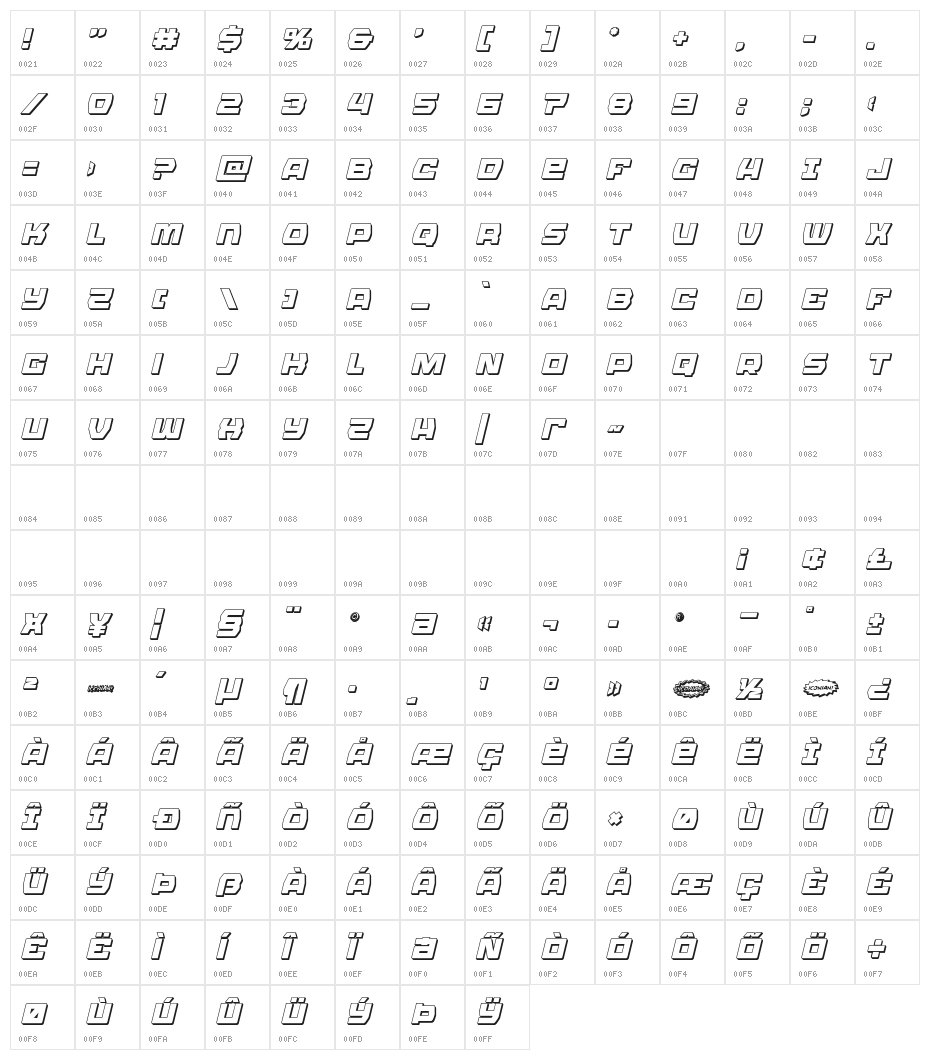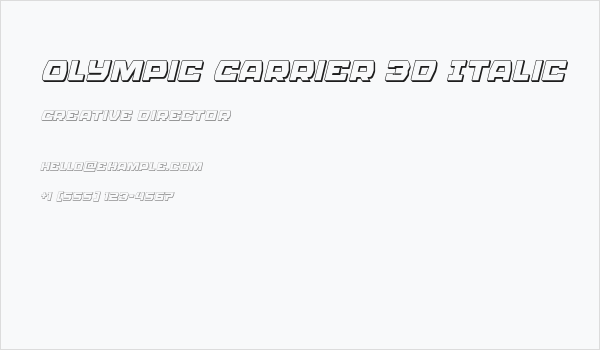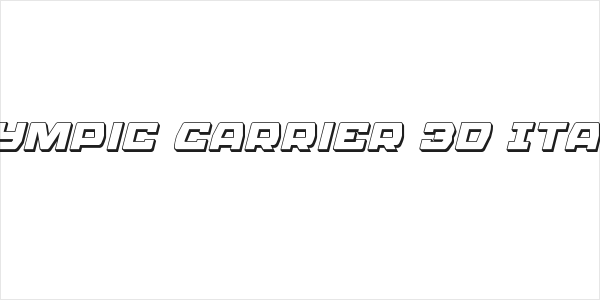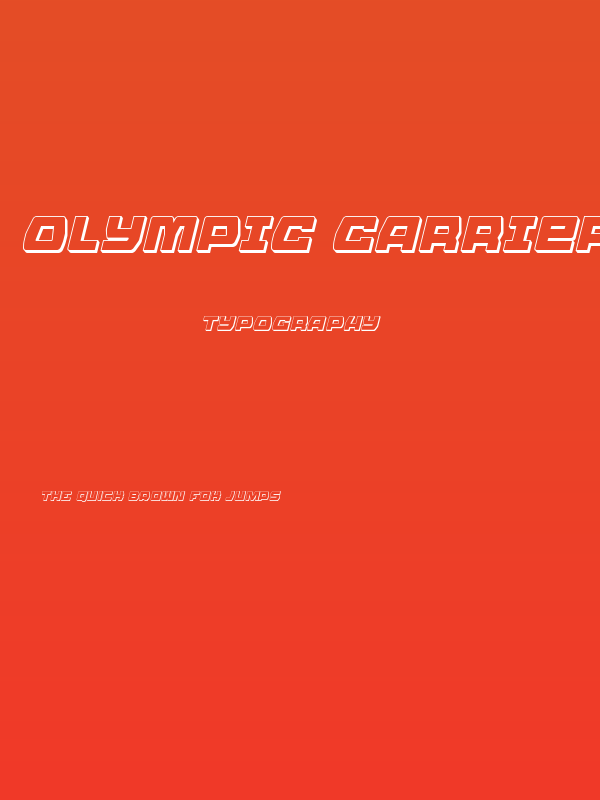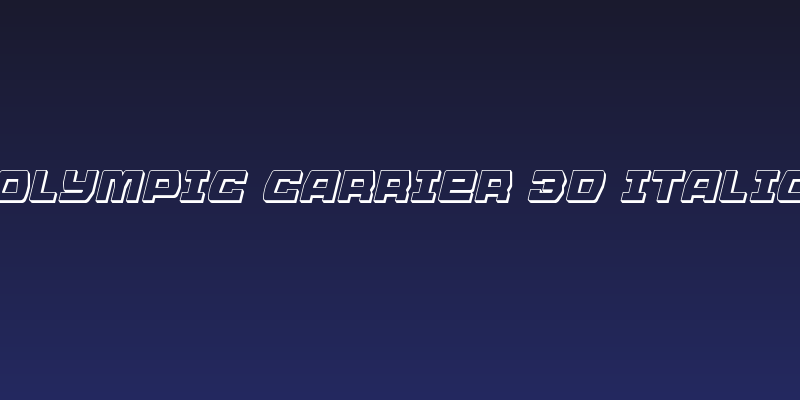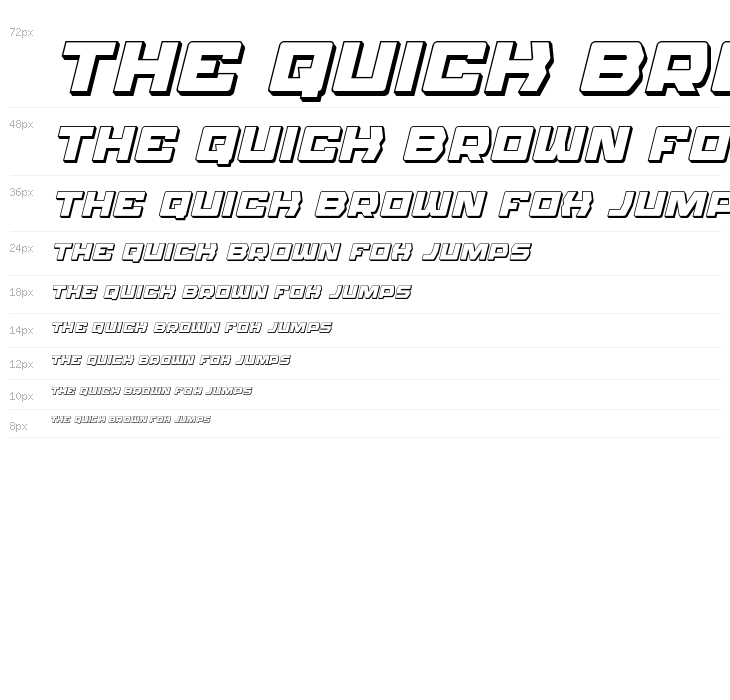
Olympic Carrier 3D Italic Font
Olympic Carrier 3D Italic Description
This font exhibits a bold, three-dimensional style with italicized characters, creating a dynamic and futuristic appearance. The letters are outlined, giving them a distinct shadow effect that enhances their 3D look. The uppercase and lowercase letters maintain a consistent style, with sharp angles and clean lines that contribute to a modern aesthetic. The numerals and special characters follow the same design principles, ensuring uniformity across all glyphs. This font's unique style makes it suitable for projects that require a standout, eye-catching typeface.
| Proposed Projects | Ideal for video game titles, sci-fi movie posters, tech branding, and futuristic event flyers. |